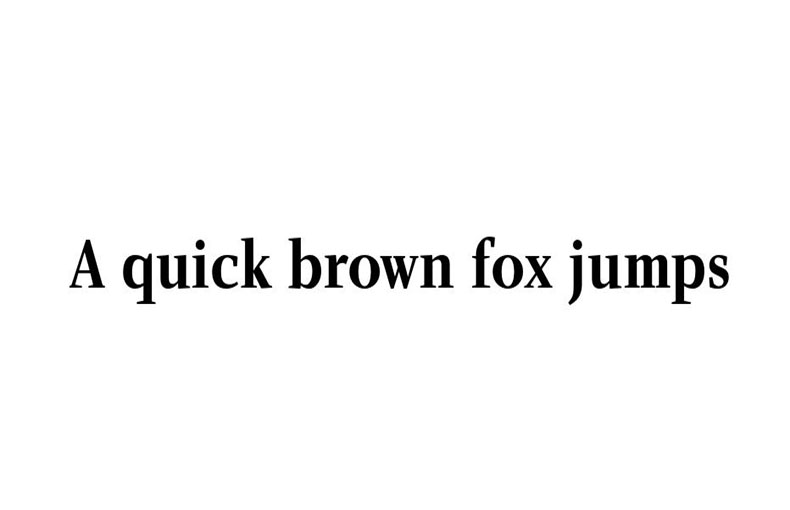
Logo, Display, Serif
SeaWorld Logo Font! SeaWorld is a chain of marine mammal parks and animal theme parks in the United States.
Owned through SeaWorld Entertainment, the parks provide site visitors the chance to see killer whales, sea lions, and dolphin shows, as nicely as zoological displays.
Founded in 1964, SeaWorld is committed to the conservation of marine lifestyles and educating the public about these magnificent creatures. With various places throughout the US, it is a tremendous destination for families and animal lovers alike.
The font used in the logo is Charlotte Bold. Made by Michael Gills in 1992, Charlotte is a modern Roman serif with a clean-cut style, strong vertical stress, and unbracketed serifs, conveying an authentic tone.
This display typeface contains 227 glyphs and 965 binary stored kerning pairs. It also supports 63 different languages.
It has a bold, rounded appearance with a slight wave-like shape that reflects the park’s connection to the ocean and marine life.
The letters are carefully crafted to create a sense of fun and excitement, while still maintaining a professional and polished look.
Overall, the SeaWorld logo font is a perfect representation of the park’s commitment to adventure, education, and conservation.
Is there a similar font to SeaWorld’s logo font?
The similar font used in the logo is Charlotte Bold. Made by Michael Gills.
Why do some brands create their own fonts?
Creating a unique font helps brands stand out and reinforces their identity.
How important is the font in a logo?
Font choice is crucial in logo design. It conveys the brand’s personality and message.